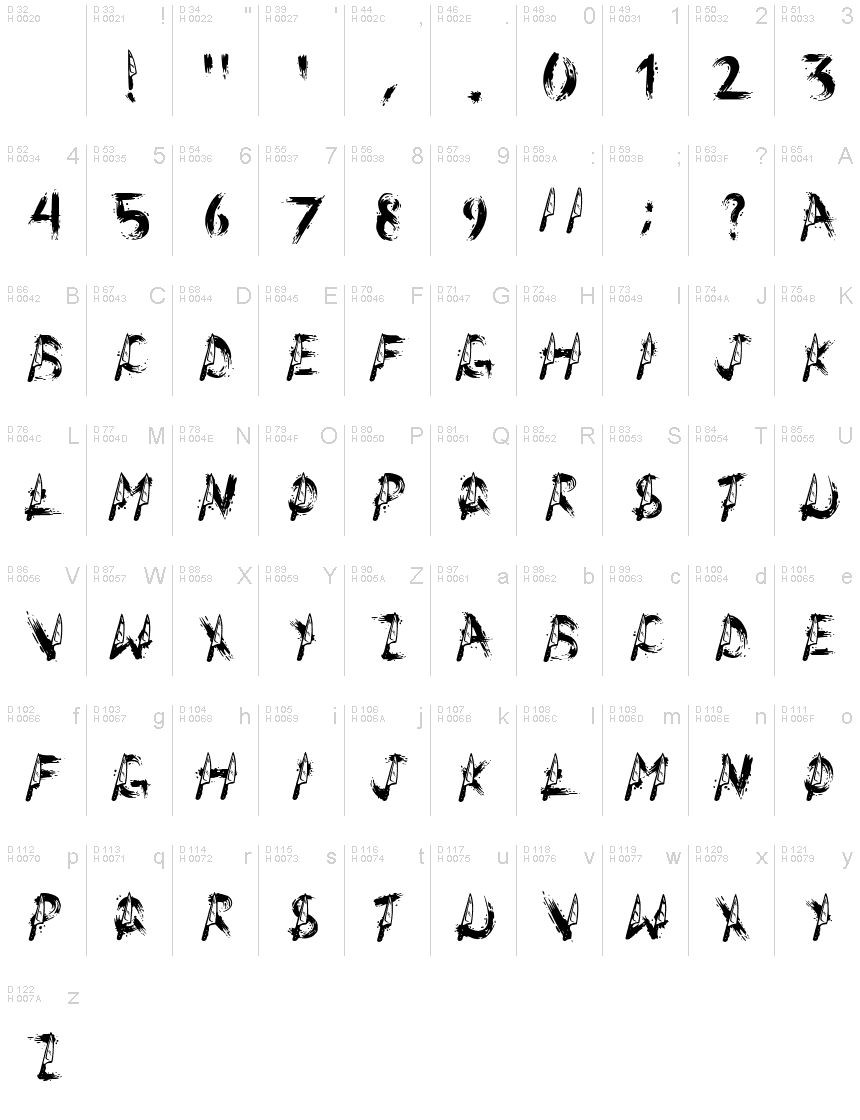
Slashies Regular
Slashies font is a scary display typeface designed by Dug McUgly.
Whats your favorite scary movie!? Tell people all about it with the Slashies font!